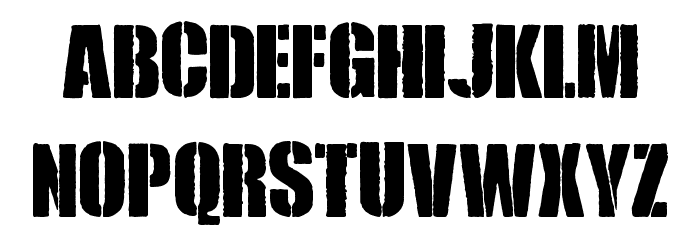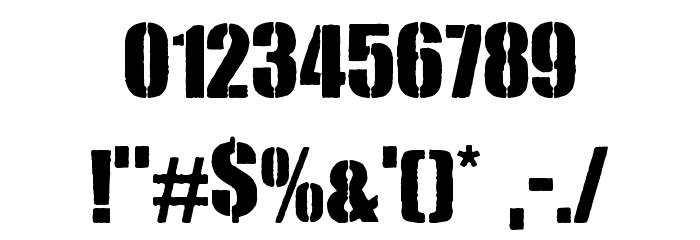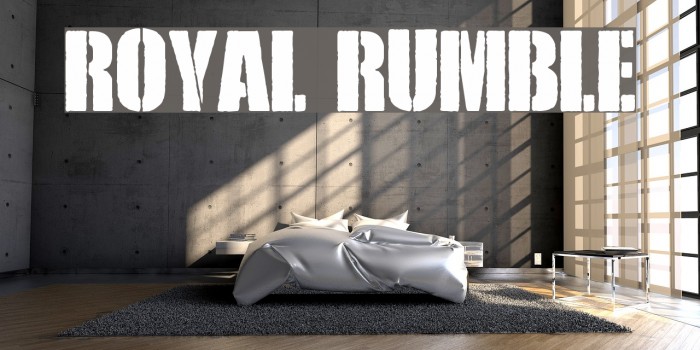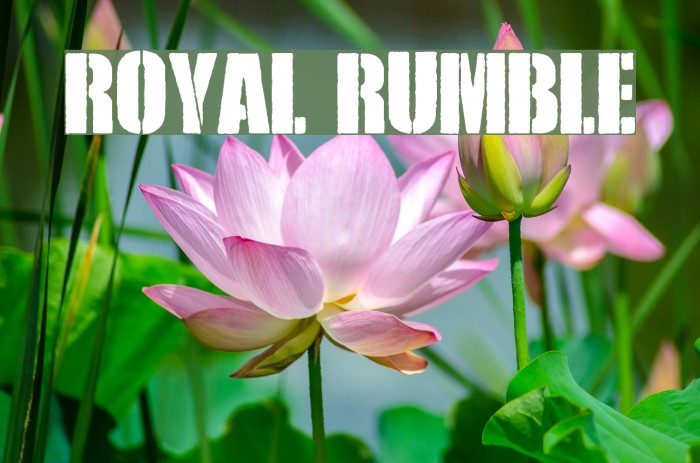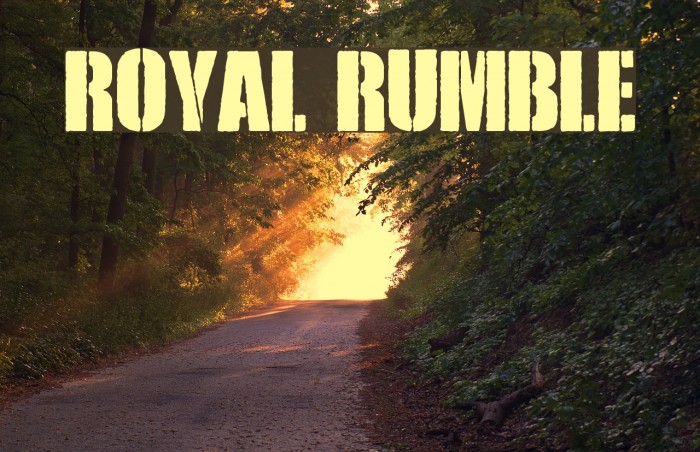
Royal Rumble Font
This font features a bold, distressed style with a stencil-like appearance. The characters are robust and impactful, with a rugged texture that gives them a worn, industrial feel. The uppercase letters are uniform in height, while the lowercase letters maintain a consistent baseline. Numbers and special characters follow the same bold and distressed aesthetic, ensuring a cohesive look across all text. The font's design is reminiscent of military or industrial signage, making it ideal for projects that require a strong, authoritative presence.
A bold, distressed stencil-style font with an industrial feel.
- Proposed Projects: Ideal for posters, branding, logos, and any design needing a strong, industrial look.
- Overall Style: Industrial, Rugged